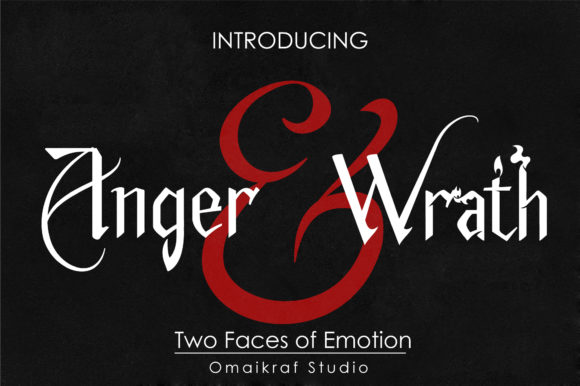
Unleash the power of Anger and Wrath, a font that embodies the very essence of boldness and uniqueness. This display font is not just a collection of letters, but a gateway to unleashing your creativity and turning your ideas into tangible masterpieces.
Imagine your designs adorned with the striking presence of Anger and Wrath, captivating the attention of all who encounter them. Whether you're crafting logos, posters, or eye-catching social media graphics, this font will elevate your creations to new heights.
With Anger and Wrath, you'll discover a font that doesn't shy away from making a statement. Its bold and distinct characters demand attention, leaving an indelible mark on the minds of your audience. It's the perfect choice for those who seek to make a lasting impression and leave a legacy of creative brilliance.
But Anger and Wrath is more than just a visually striking font; it's a versatile tool that adapts seamlessly to a wide range of projects. Whether you're designing for print or digital media, this font will effortlessly elevate your work and set it apart from the ordinary.
Don't settle for fonts that blend into the background. Embrace the power of Anger and Wrath, and unlock a world of creative possibilities that will leave you and your audience breathless. Experience the transformative power of this font today and see how it ignites your imagination and sets your designs ablaze.